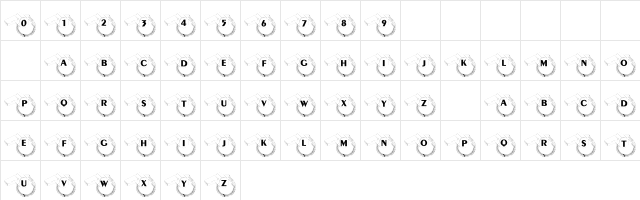
101! Referee Ron's Whistle Regular
Design Context for 101! Referee Ron's Whistle Typeface
101! Referee Ron's Whistle is a composed and adaptable typeface that performs quietly and consistently across a wide range of design contexts.